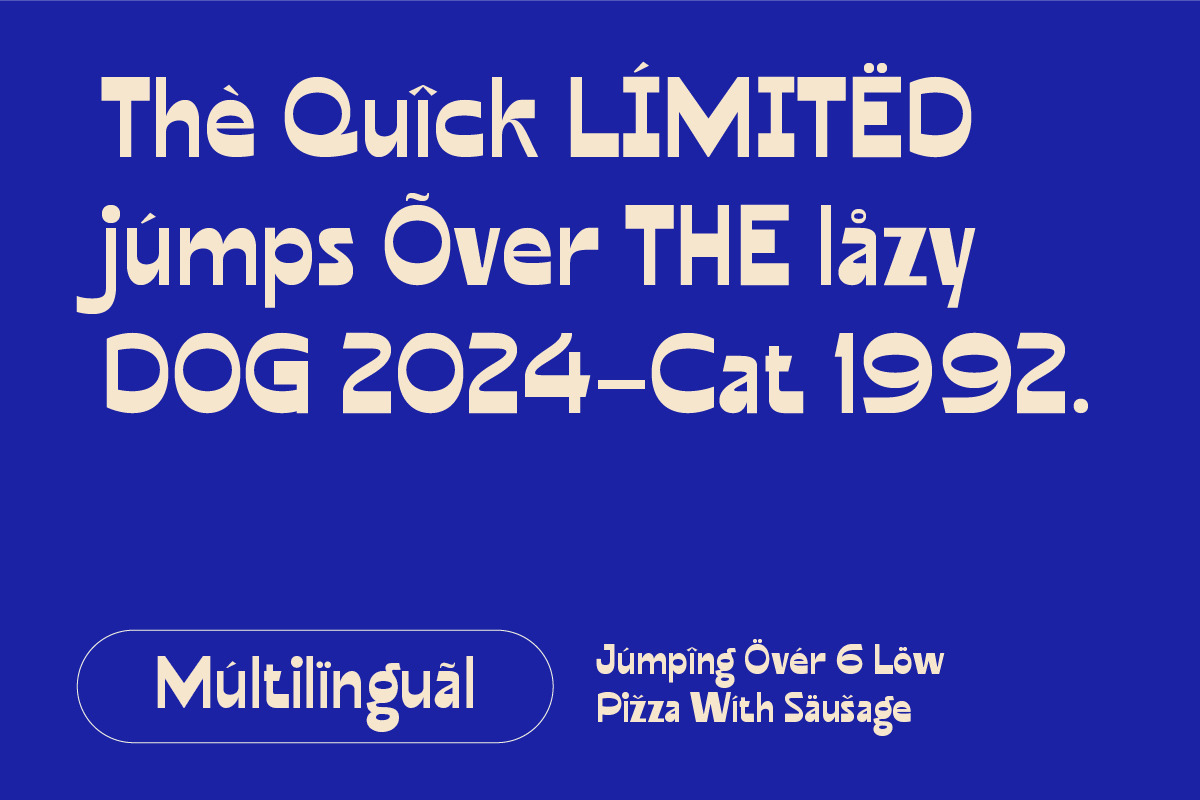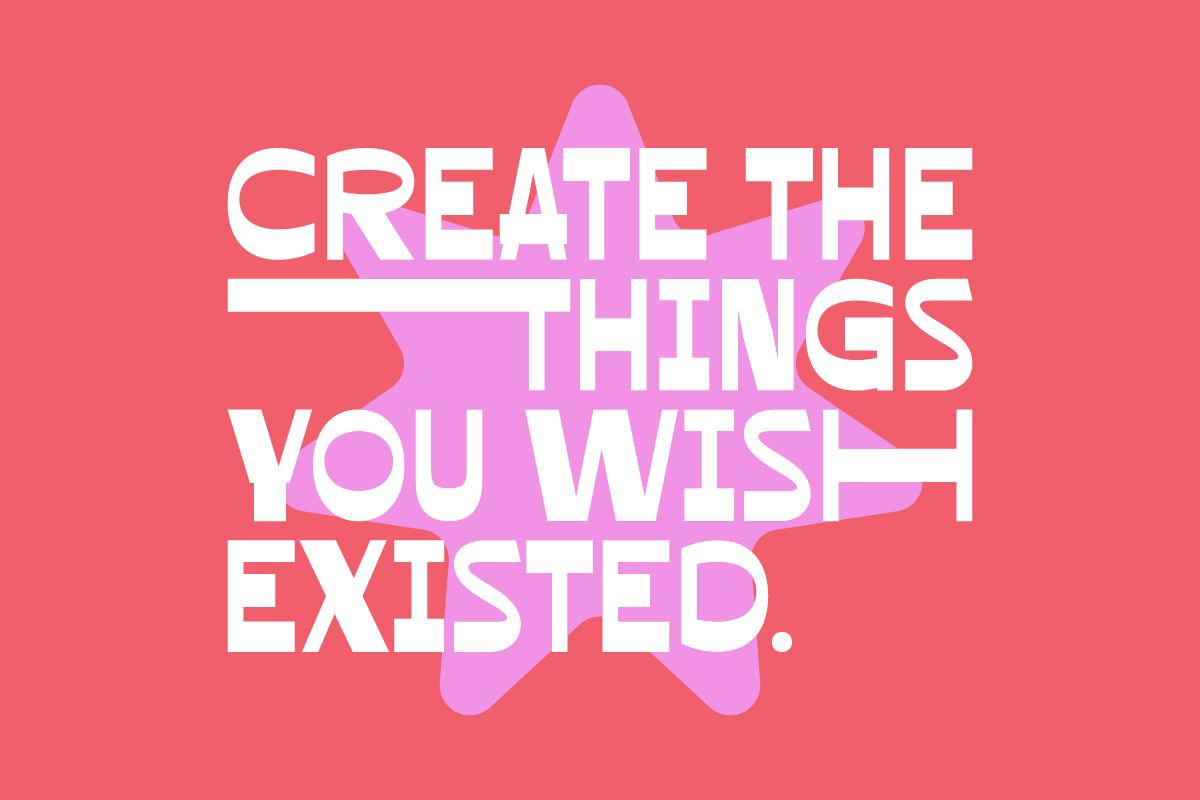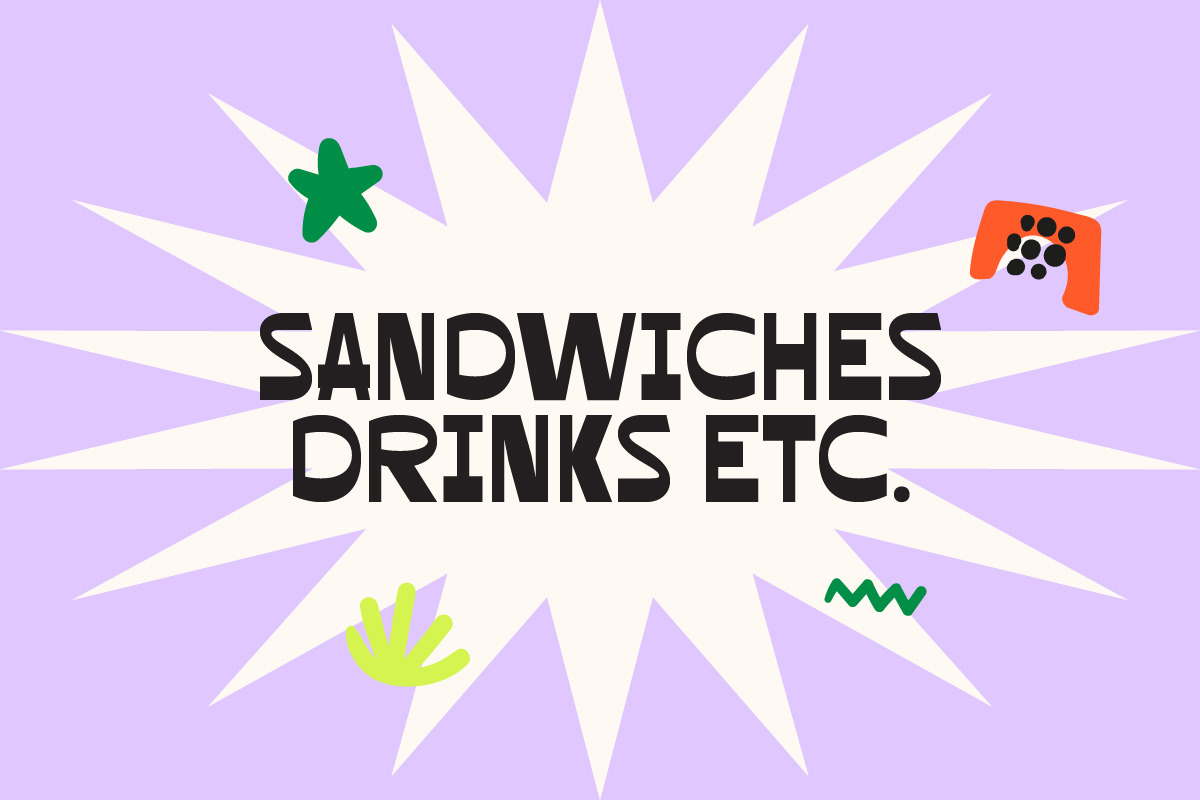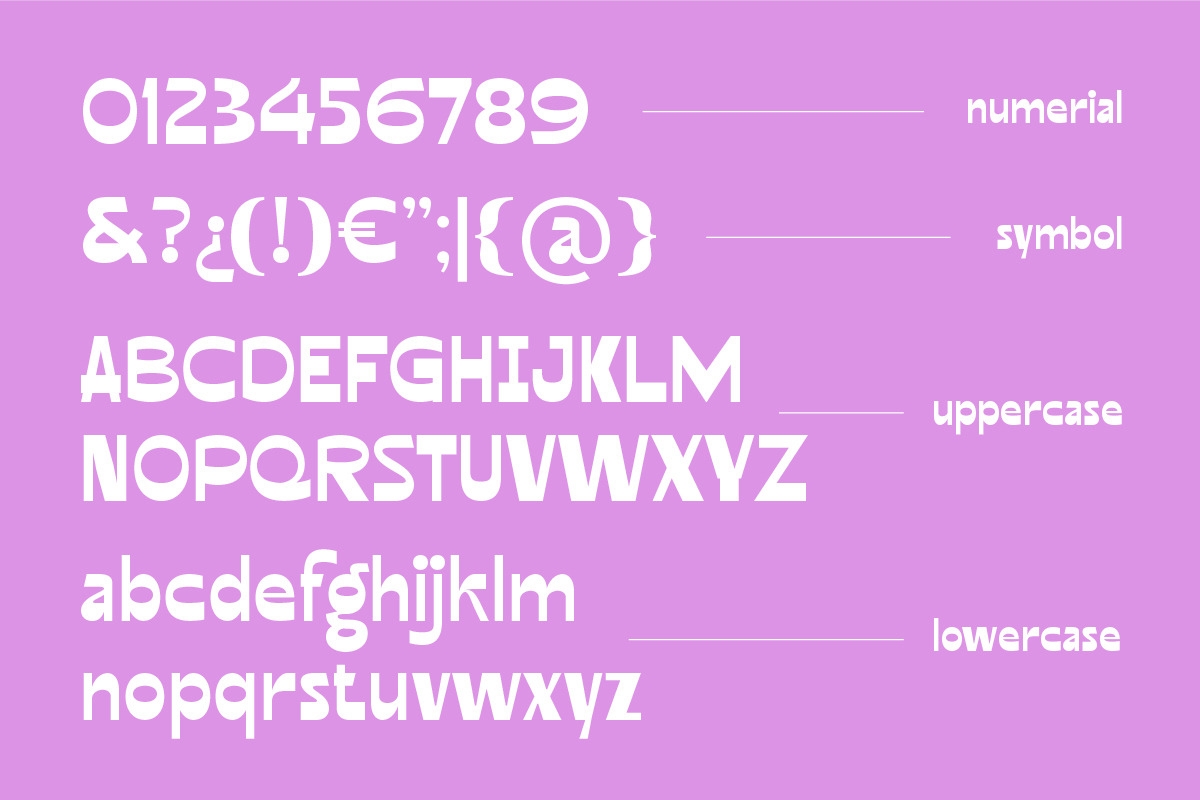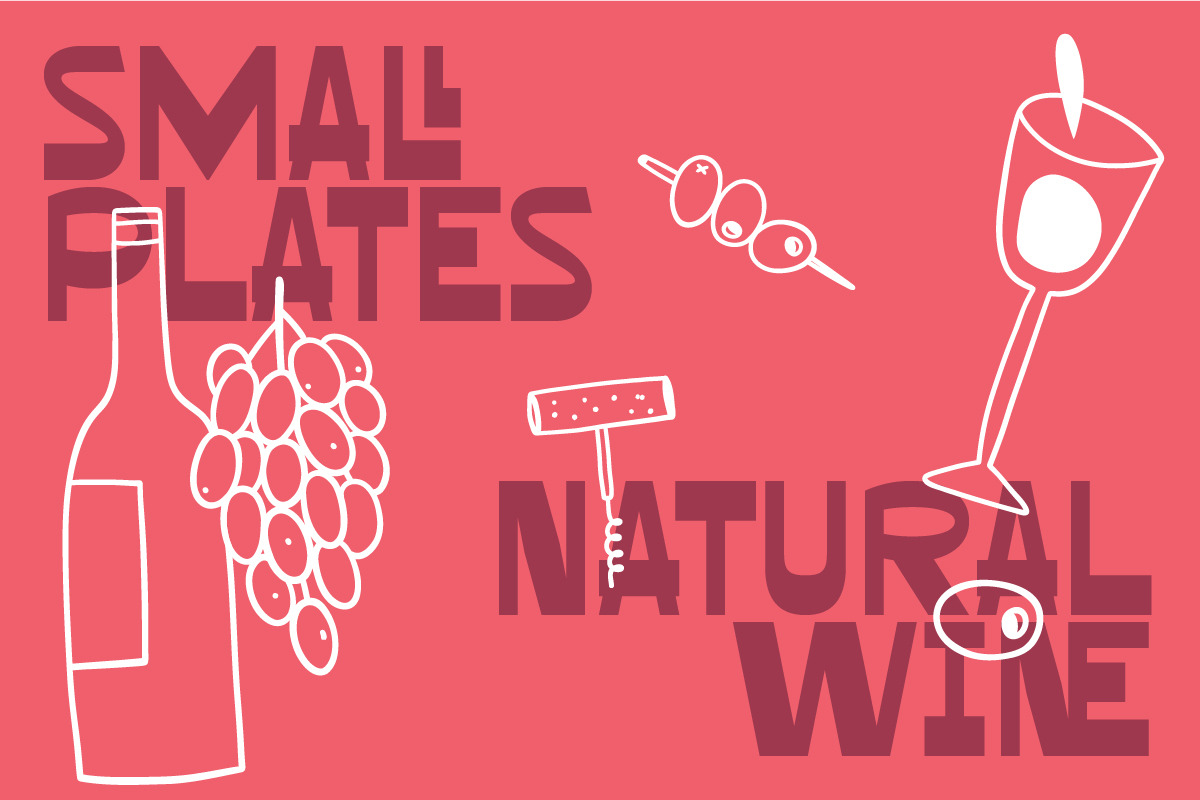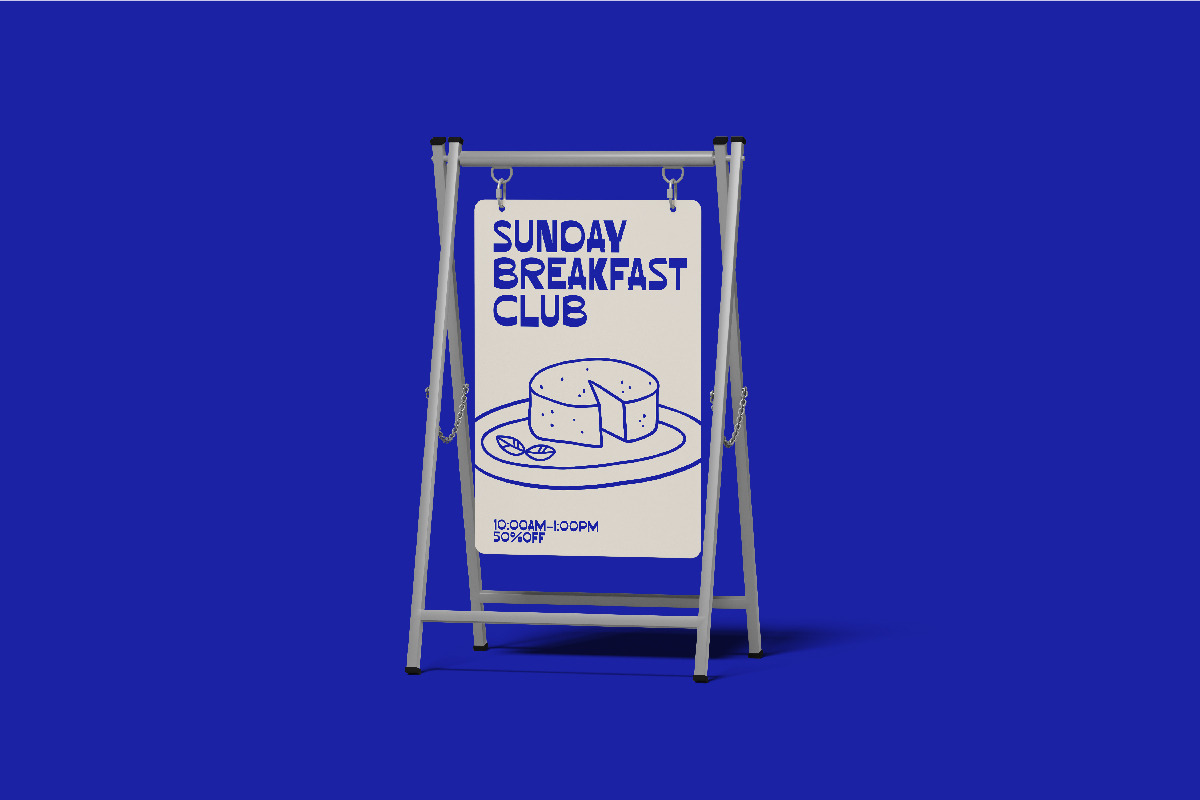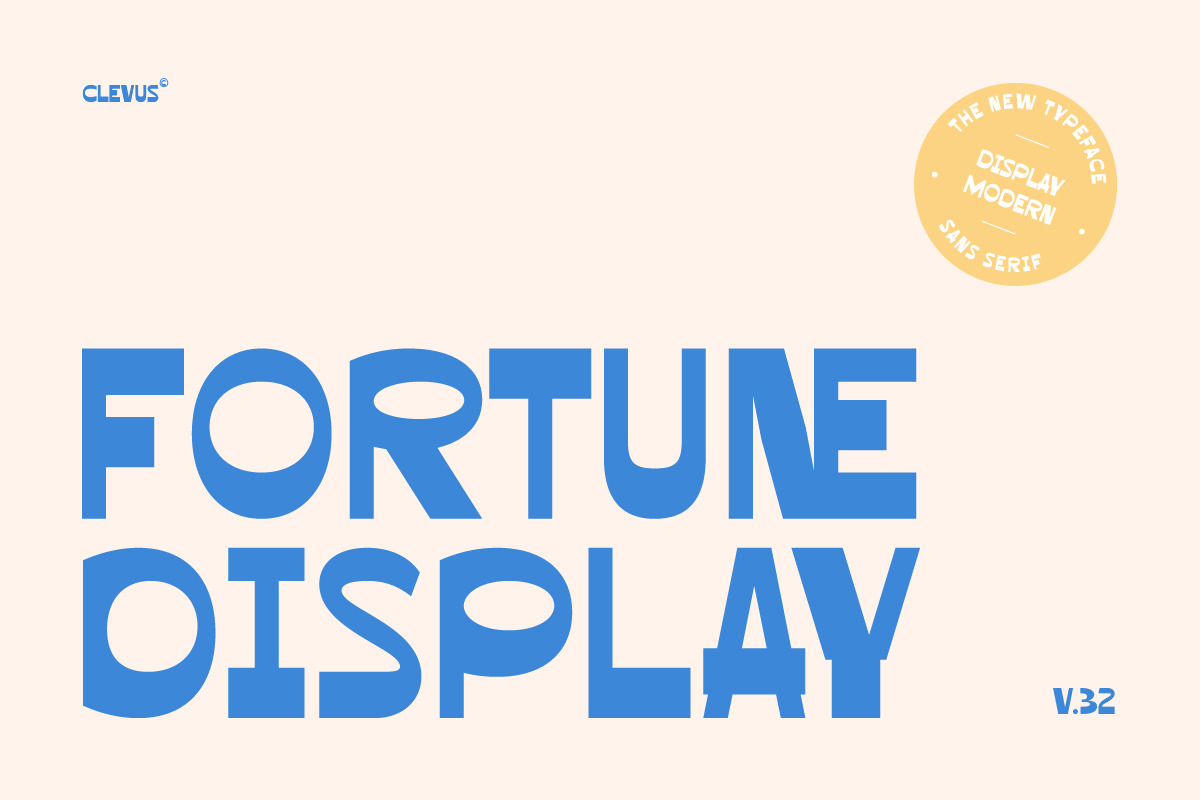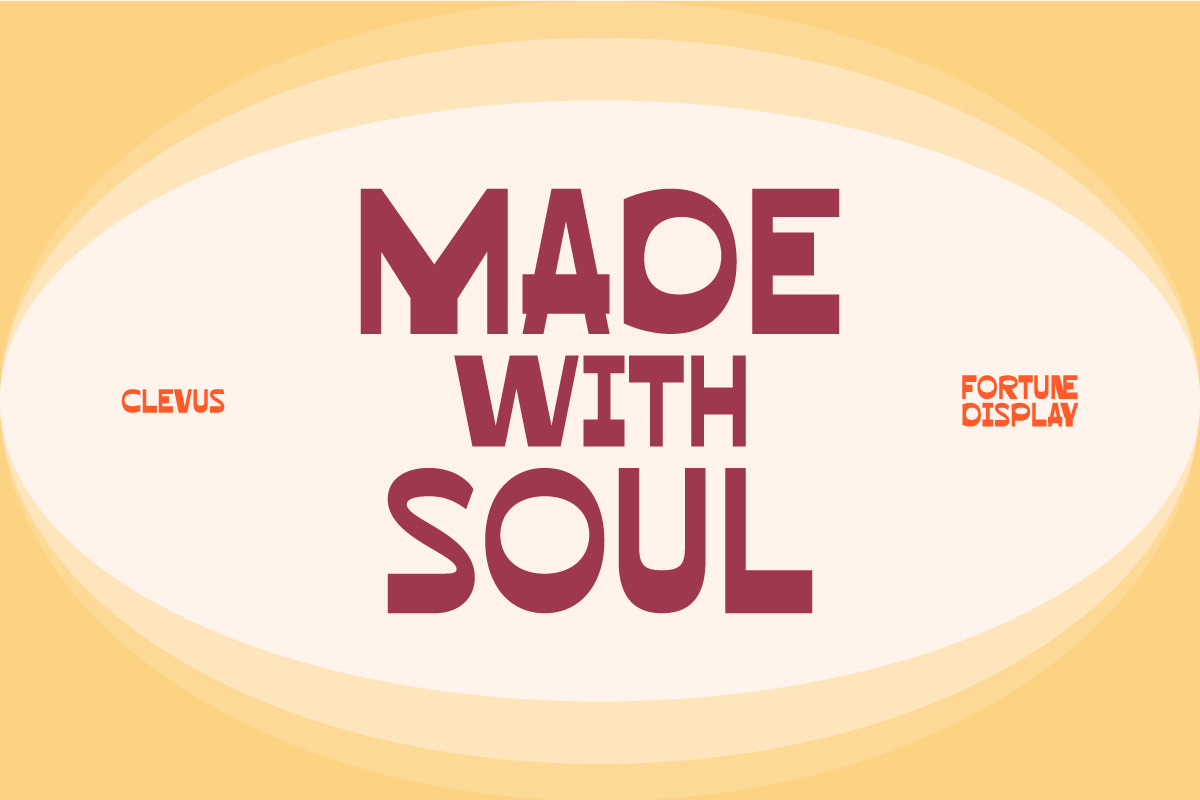
Fortune Display | Modern font
Proudly present Fortune Display by Clevus,
Modern sans-serif typeface designed for those seeking a unique and impactful font. Its sleek, elongated forms and bold, asymmetrical characters ensure a strong visual presence, while extensive special characters and multilingual support add flexibility.